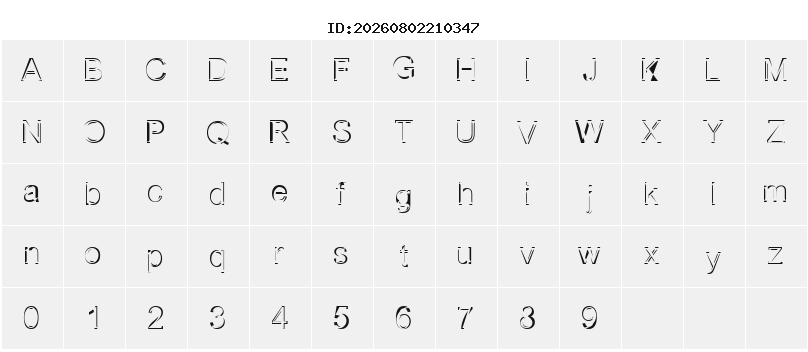
Northern Book Sale Preview
• Font Name: Northern Book Sale
About Northern Book Sale.ttf
Northern Book Sale.ttf is a modern, elegant sans-serif font designed for ultimate readability and visual harmony. Perfect for branding, headlines, web design, and print materials.